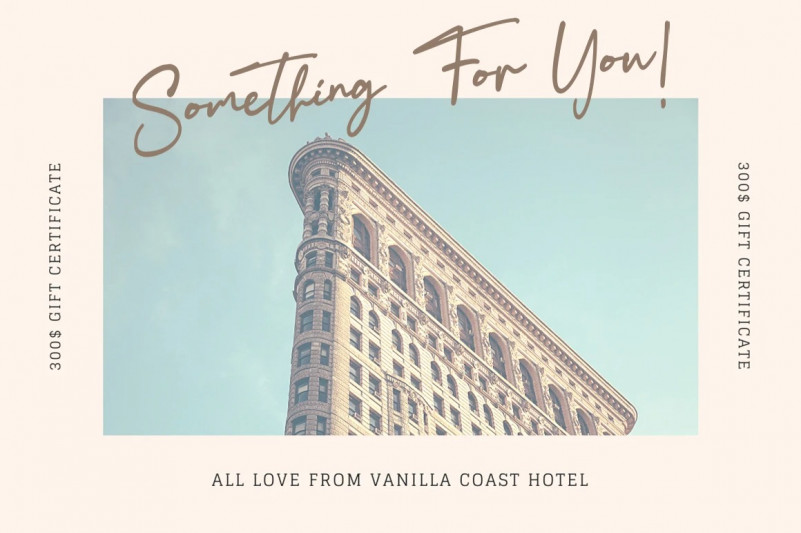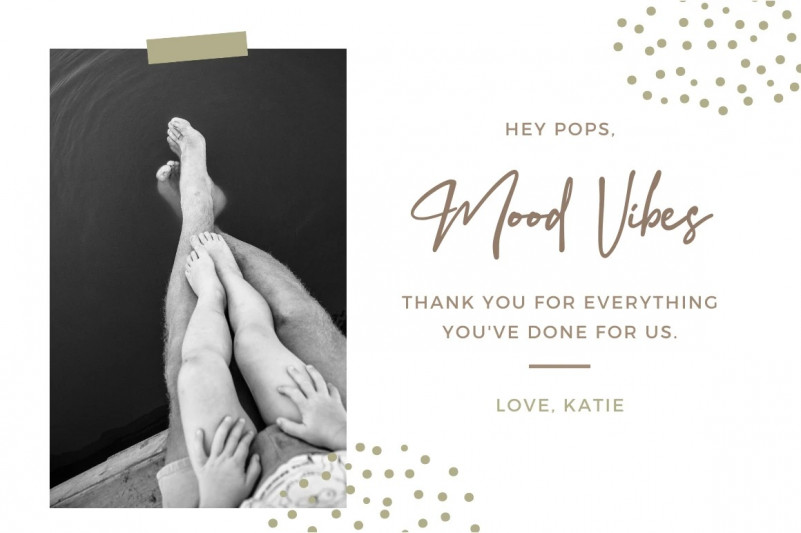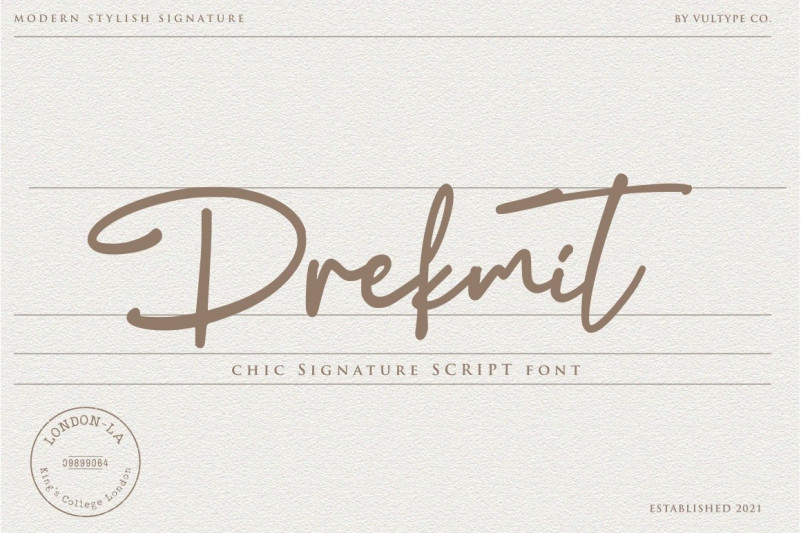
Drekmit Handwritten Font
This is a modern handwritten script font designed to have that realistic pen-to-paper effect. Fall in love with its incredibly distinct and timeless style and use it to create spectacular designs!
It easily cooperating together For Magazine, Movies, or Book Titles. For Photography, Wedding Invitation, Restaurant Menu or T-shirt Design. For Flyers, Banner Ads, web and printing. From Food and Fashion to a Cosmetics product.